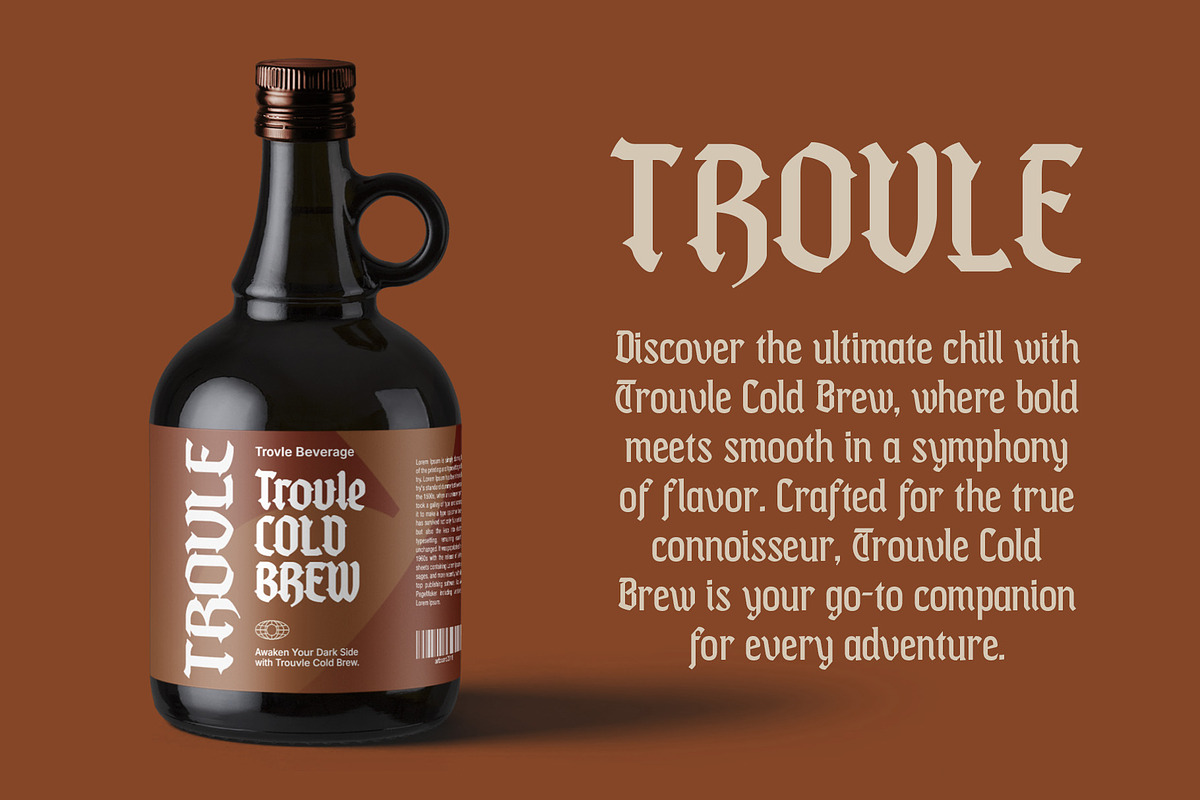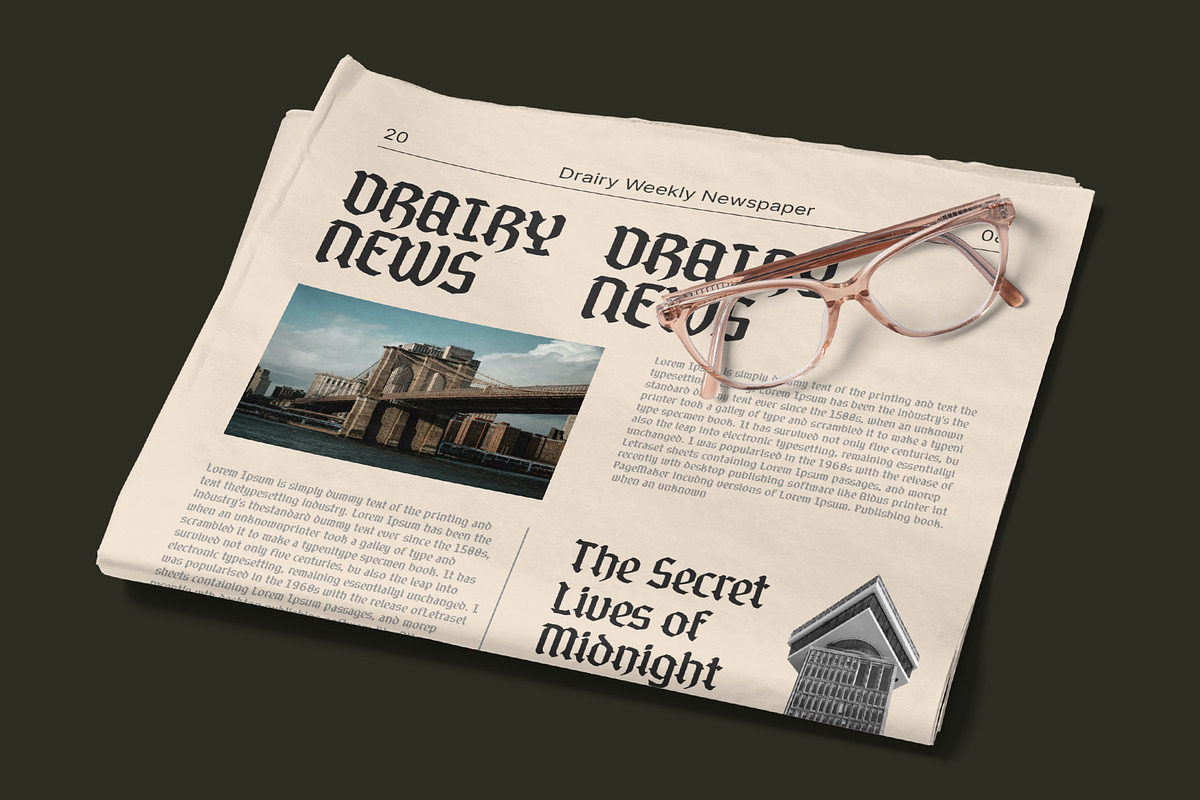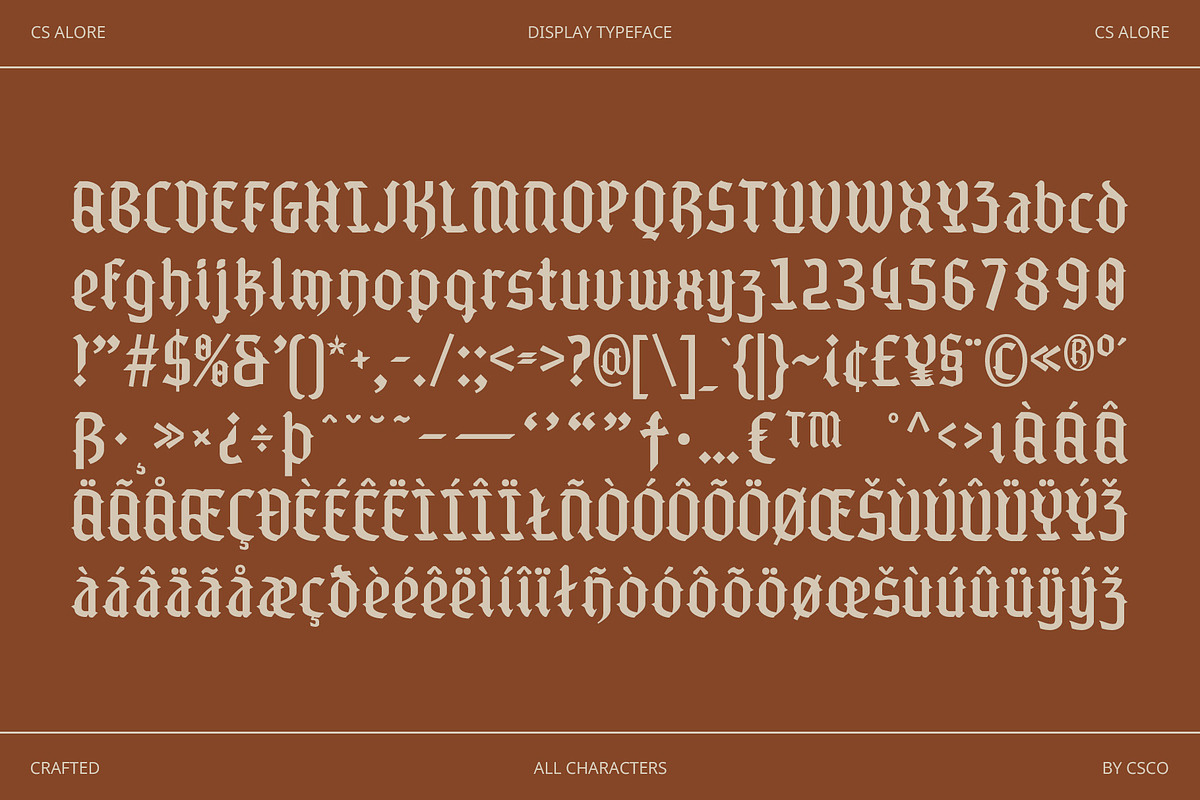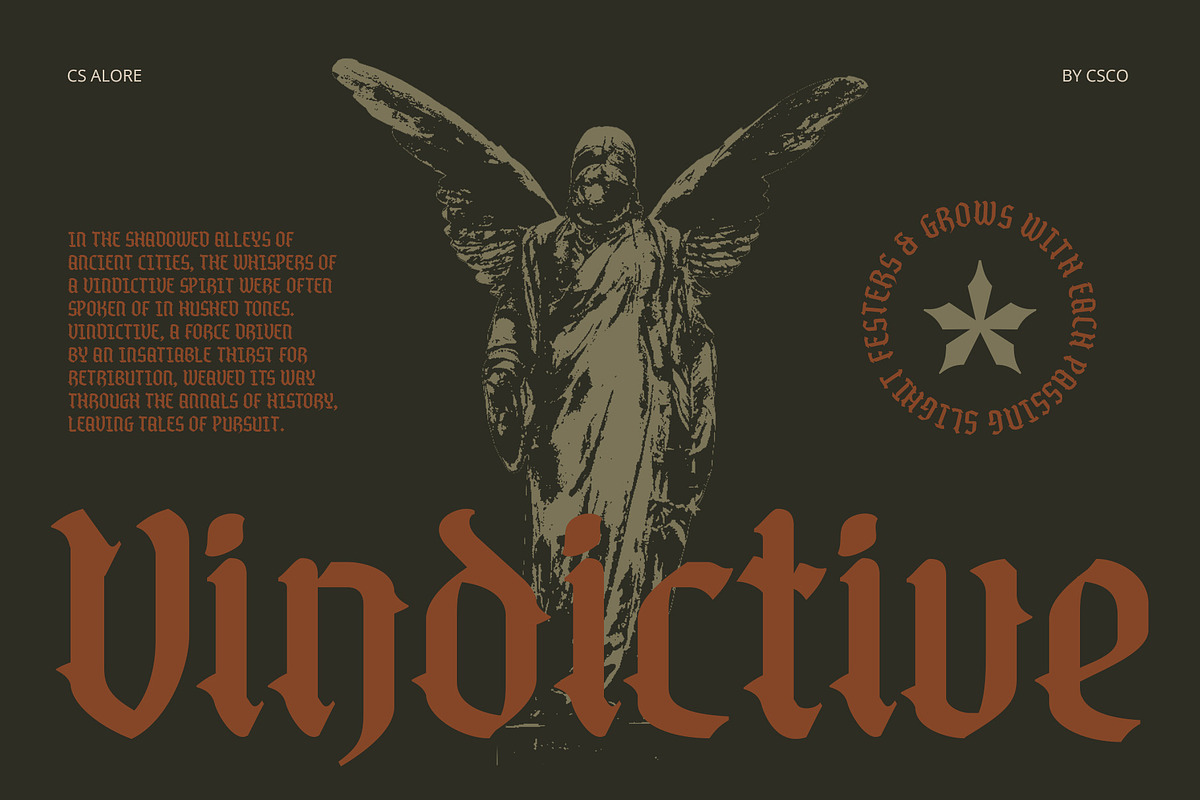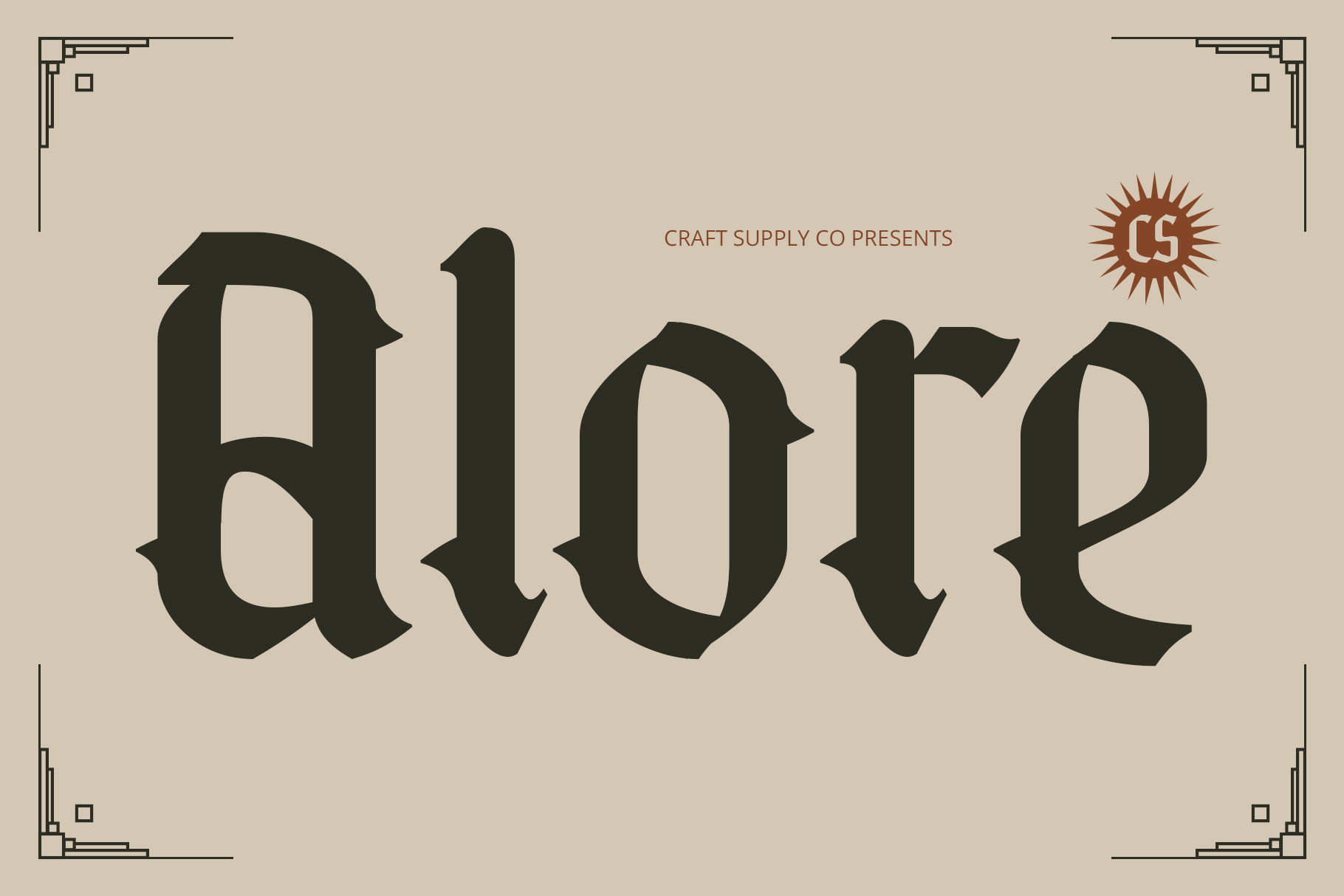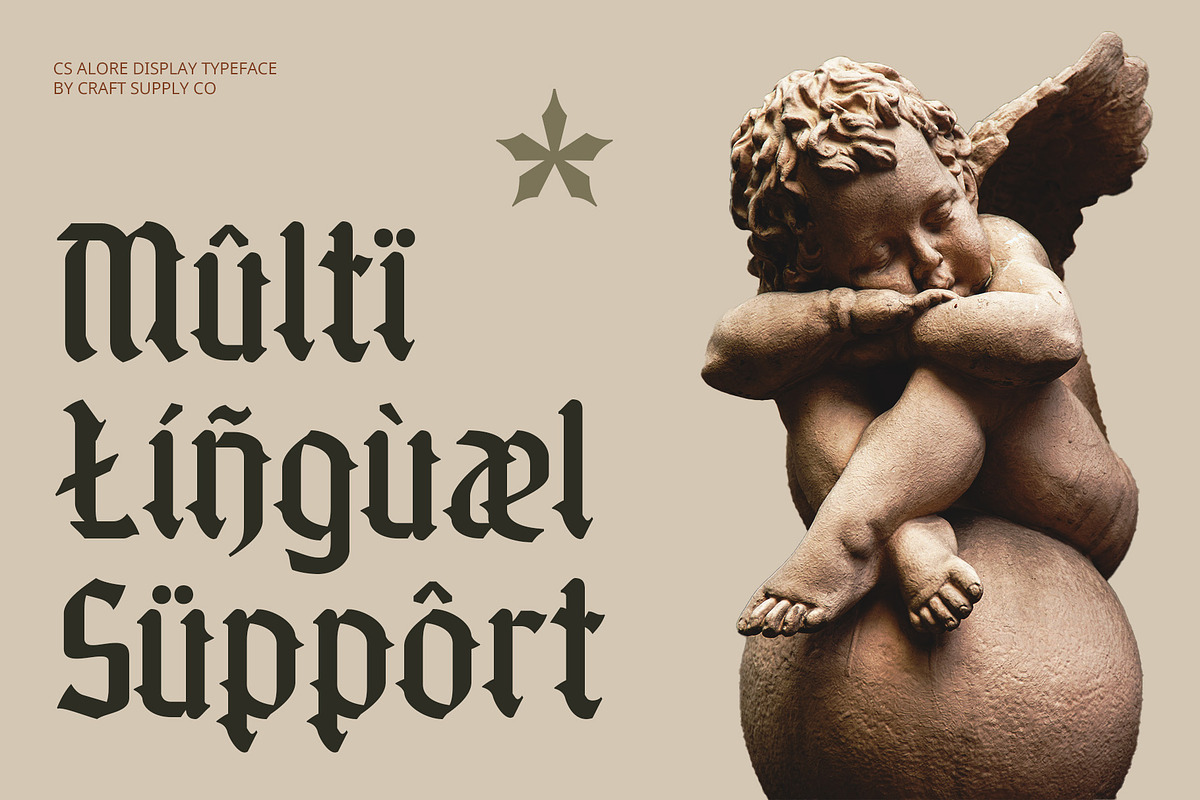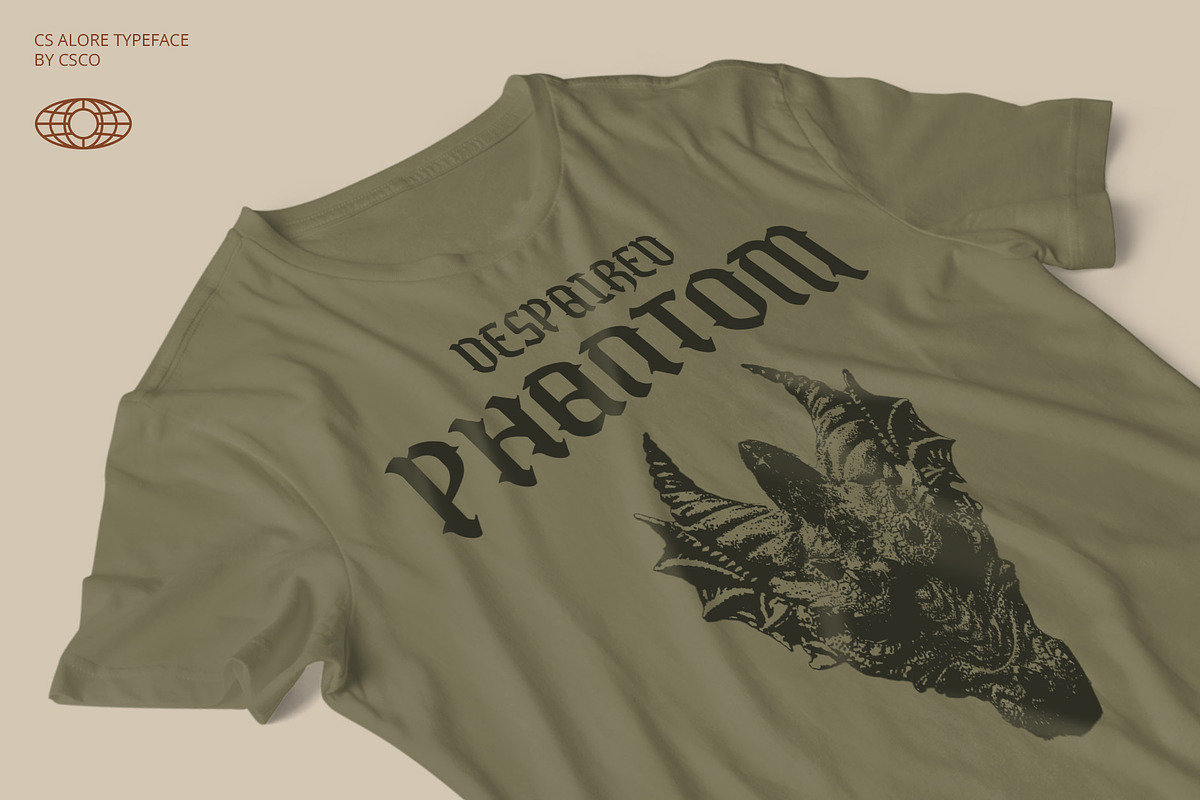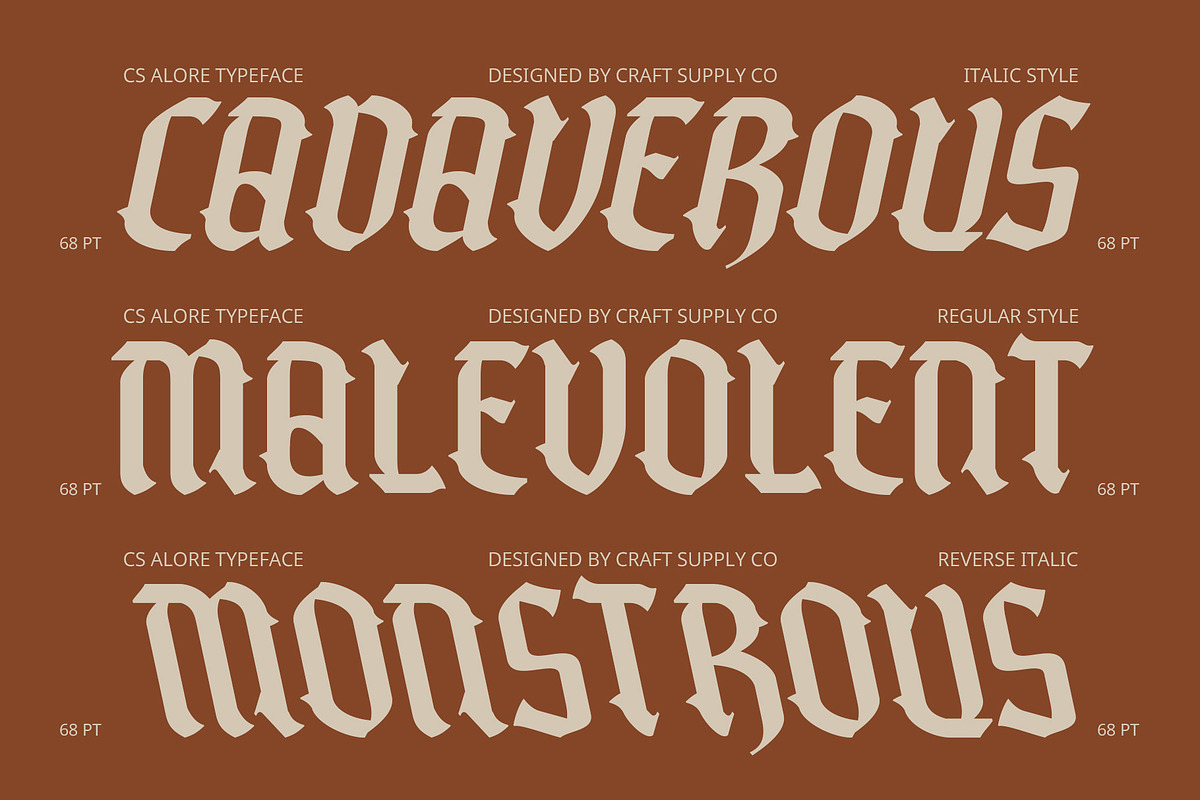
CS Alore – Blackletter Font
CS Alore – Blackletter Gothic Font with a Modern Edge
Intricate Medieval Design with Contemporary Flair CS Alore is a Blackletter Gothic font that skillfully merges intricate, medieval-inspired letterforms with a modern touch. This display serif font exudes grandeur and historical depth, offering a dramatic and authoritative presence that makes a powerful statement in any design.
Grand and Authoritative Aesthetic With its complex, ornate design, CS Alore is perfect for high-impact projects that require a sense of historical sophistication and elegance. The font’s dramatic presence makes it ideal for luxury branding, formal invitations, and themed events, where a striking and timeless aesthetic is desired.
Versatile for Luxurious and Formal Uses CS Alore’s combination of medieval intricacy and contemporary edge makes it a versatile choice for various design applications. Whether you’re creating luxury branding, designing formal invitations, or developing themed event materials, this font delivers a distinguished and compelling visual appeal.
Balancing Tradition and Modernity By blending the historical depth of Blackletter Gothic with a modern edge, CS Alore offers a unique font that combines classic elegance with contemporary sophistication. It provides a timeless and authoritative appearance that enhances the impact of your designs.
- CS Alore Regular
- CS Alore Italic
- CS Alore Reverse Italic